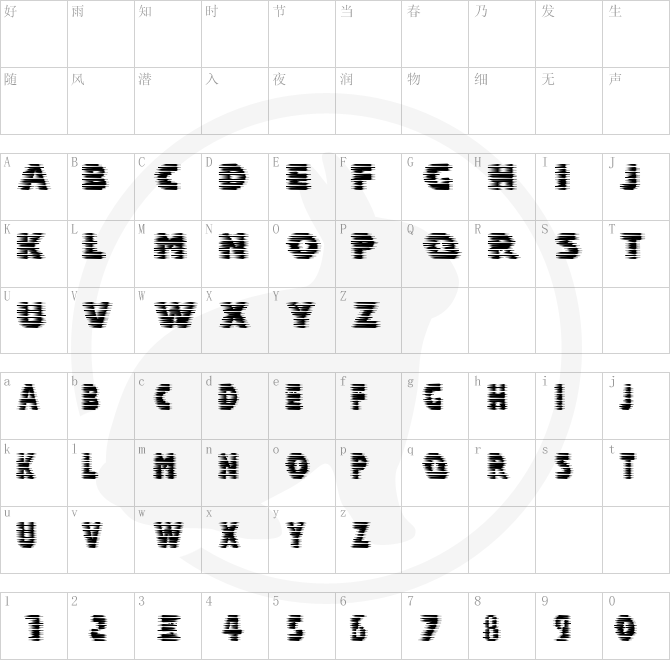
- Font Name:Halcion
Halcion.ttf is a very beautiful artistic font, Halcion.ttf is widely used in the design and printing of various books and pictures,Halcion.ttf has a strong visual impact,Halcion.ttf is a commonly used font in newspapers, magazines and books, and is used in posters, e-commerce Poster design, store design, logo design, font design and other fields.Halcion.